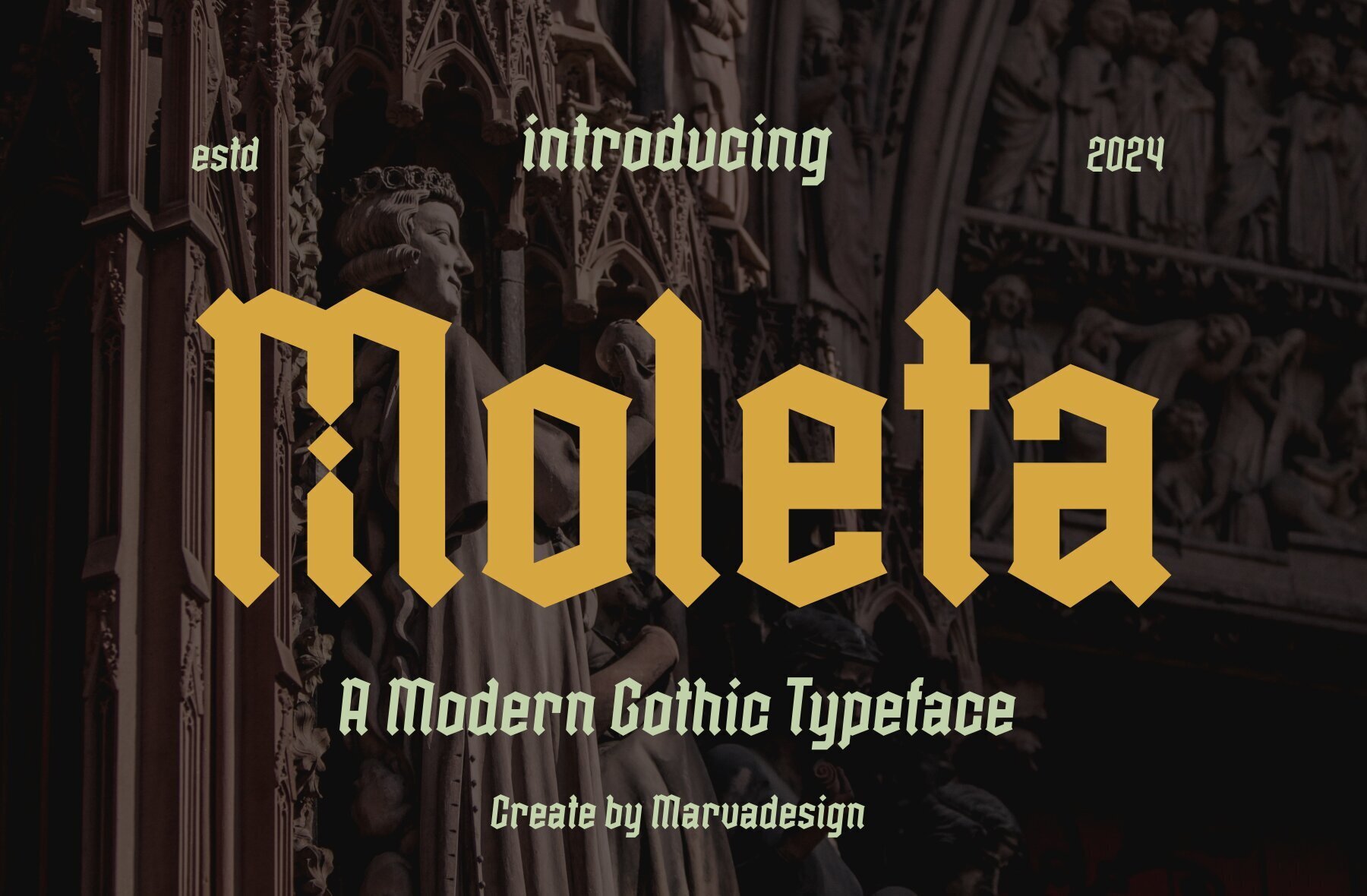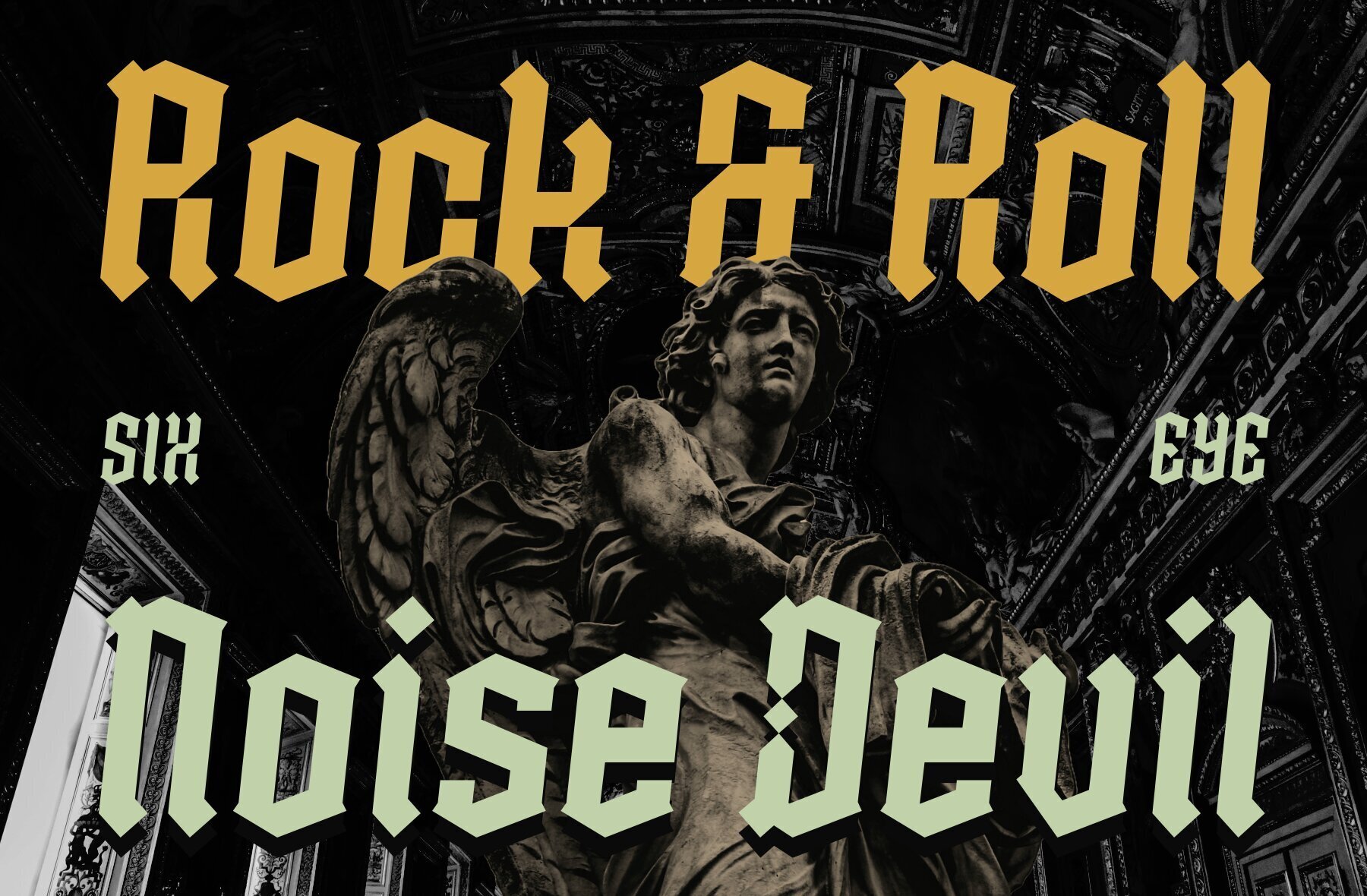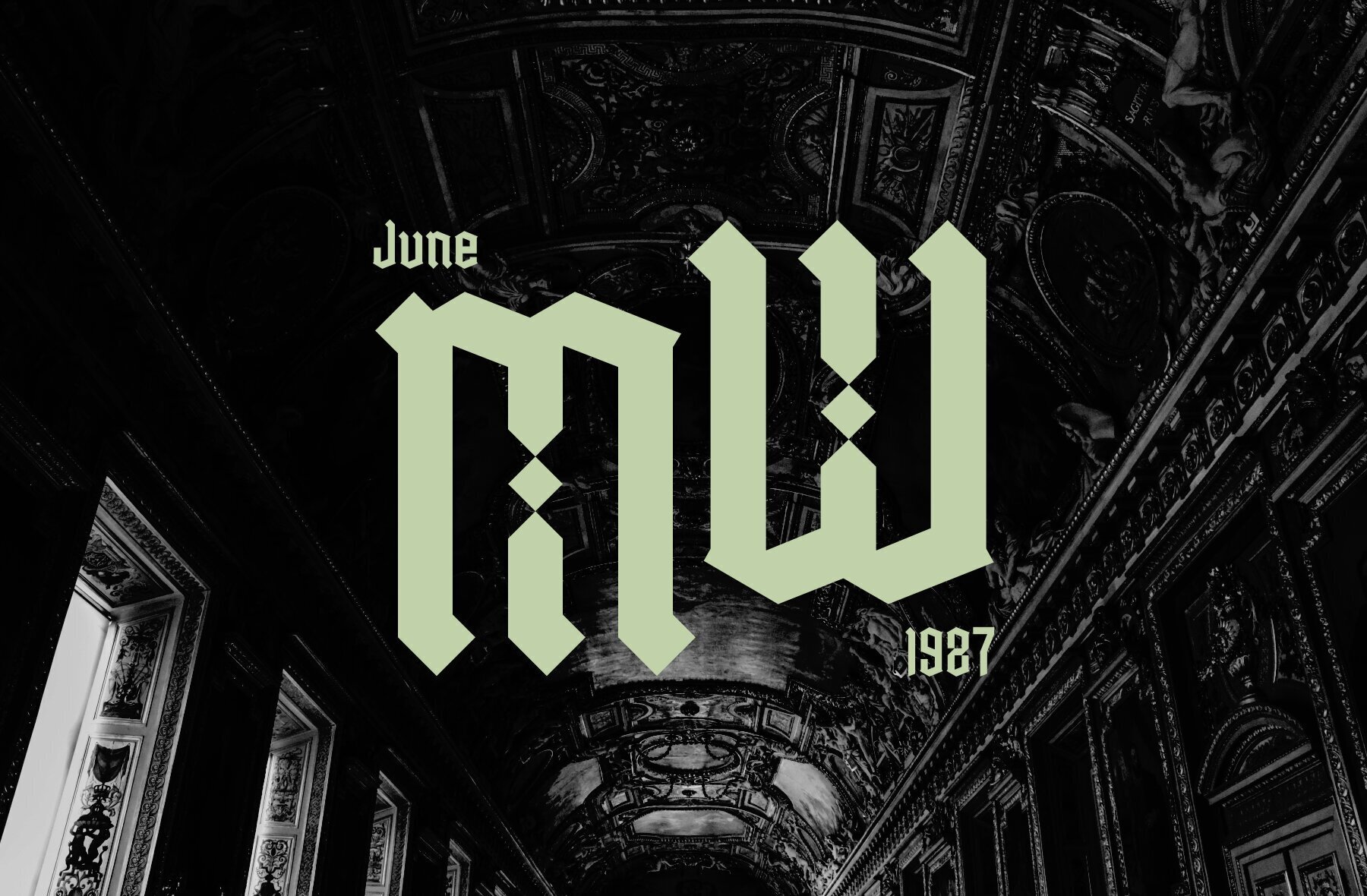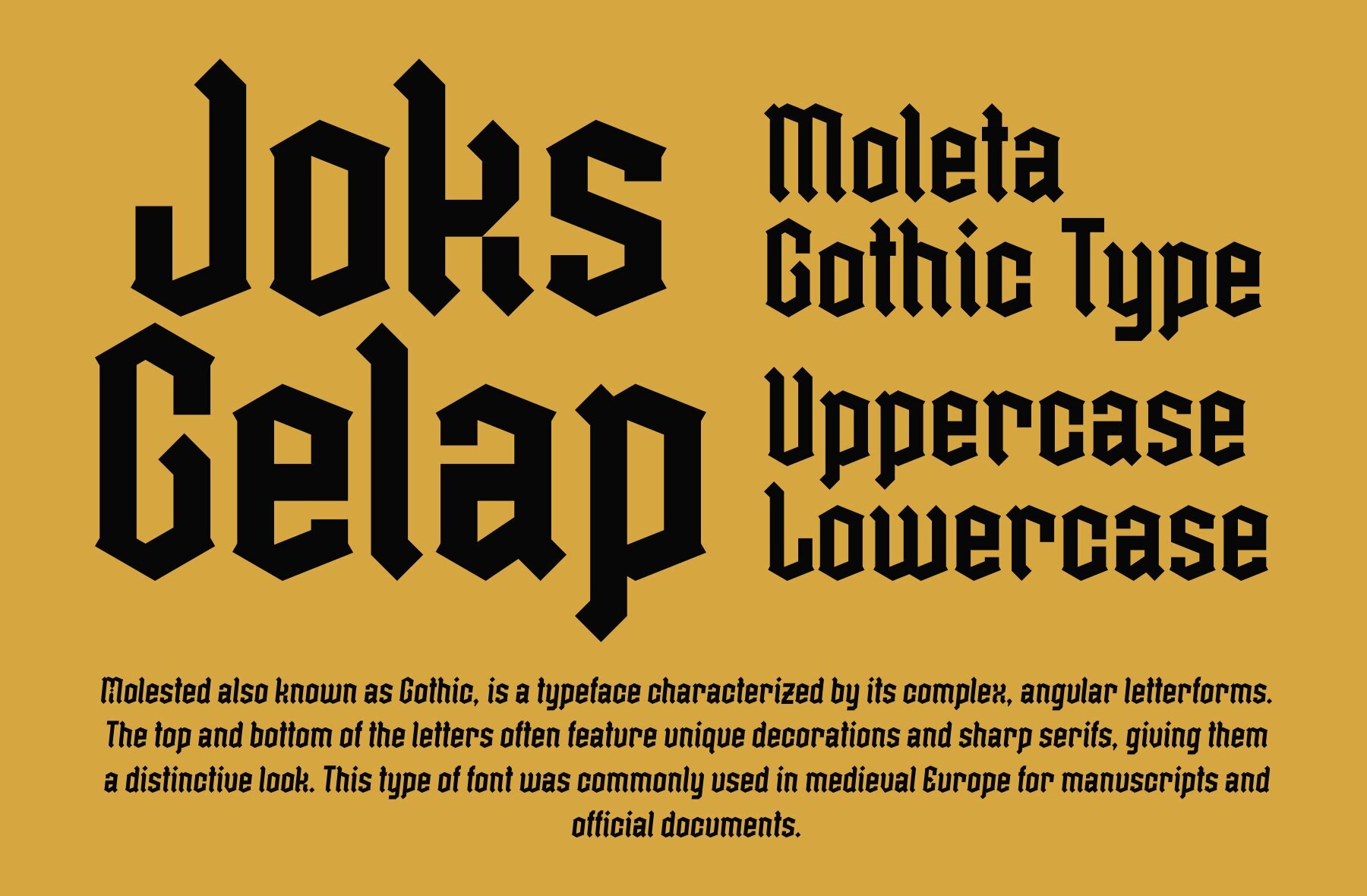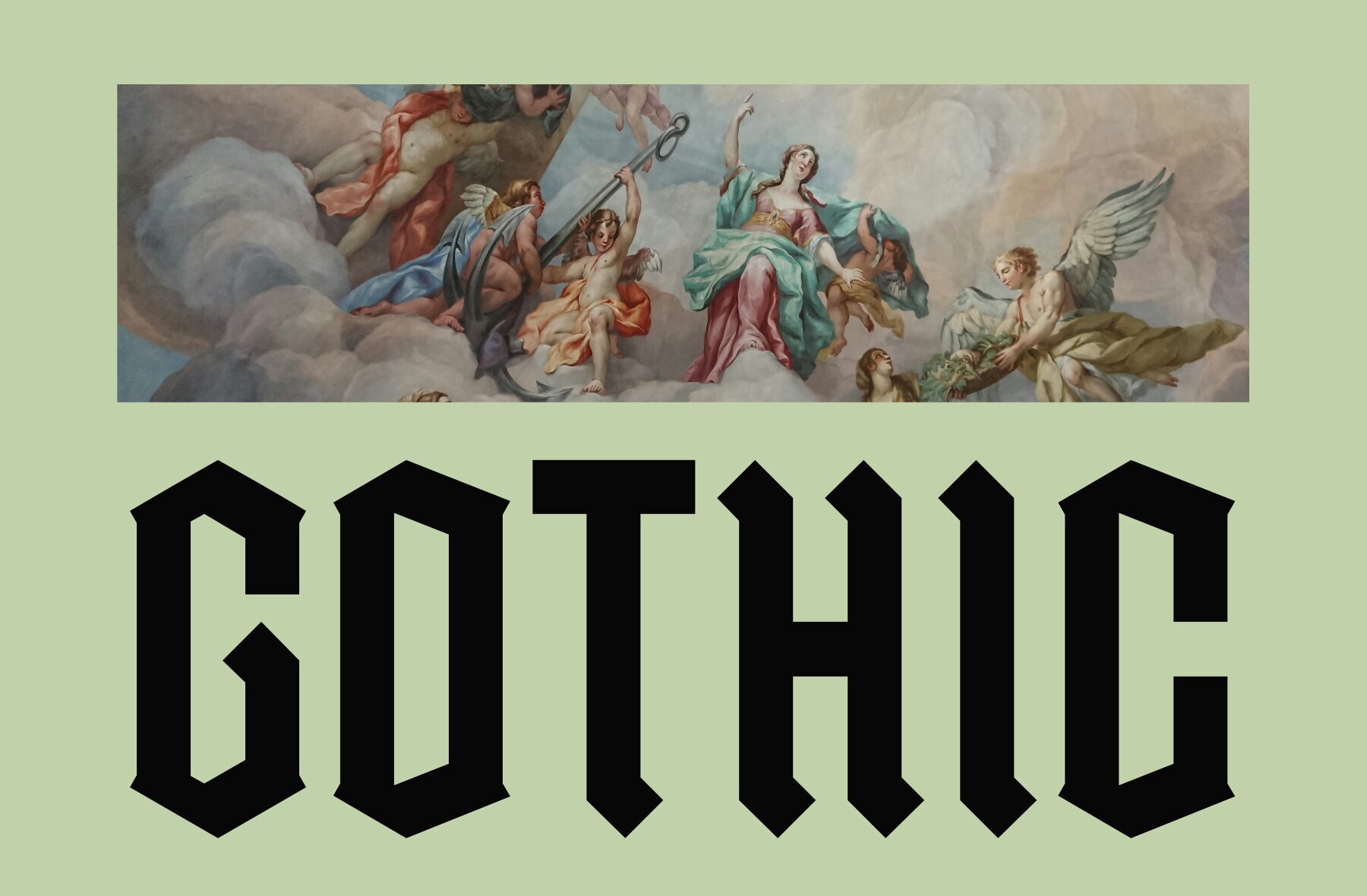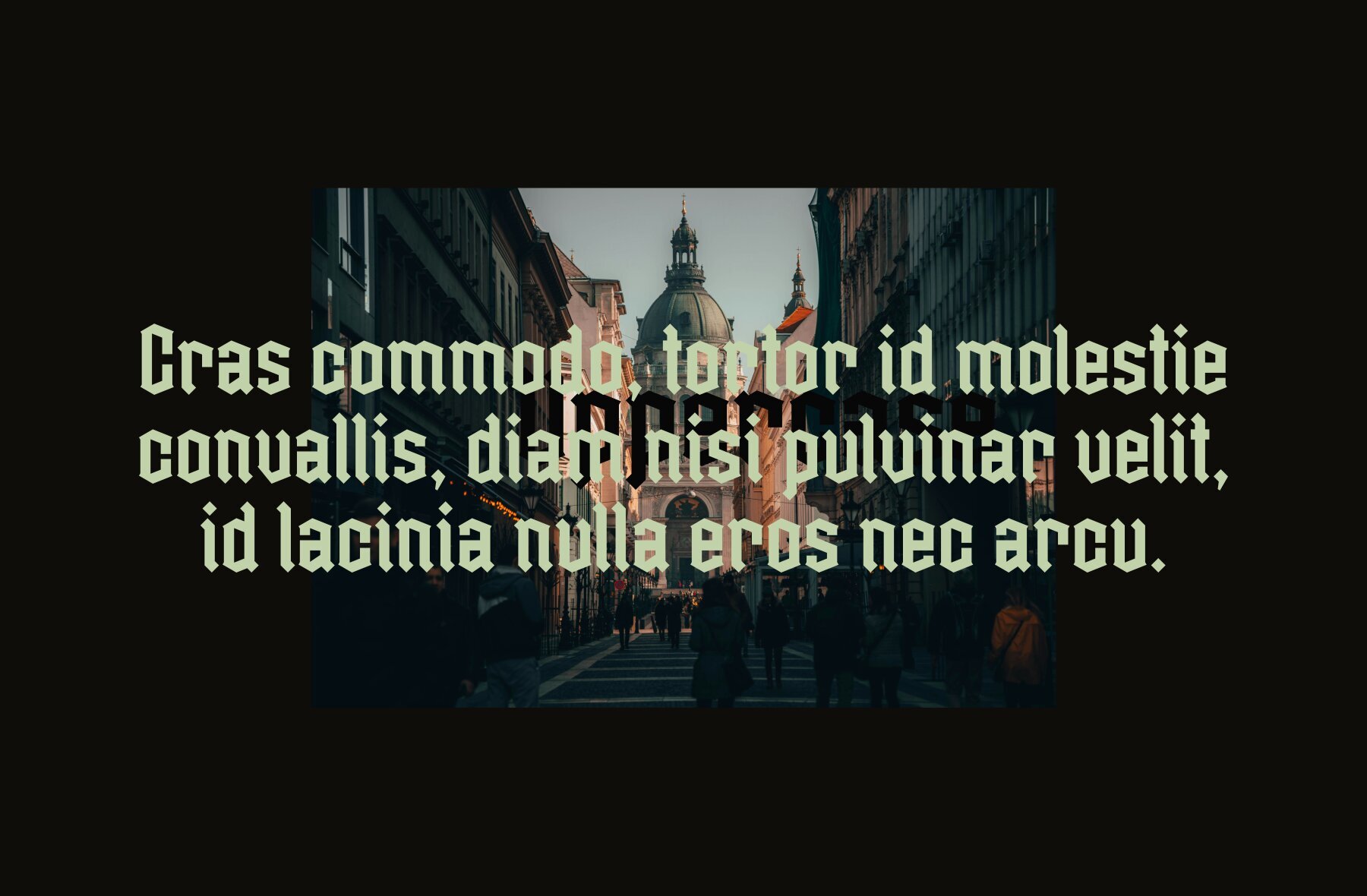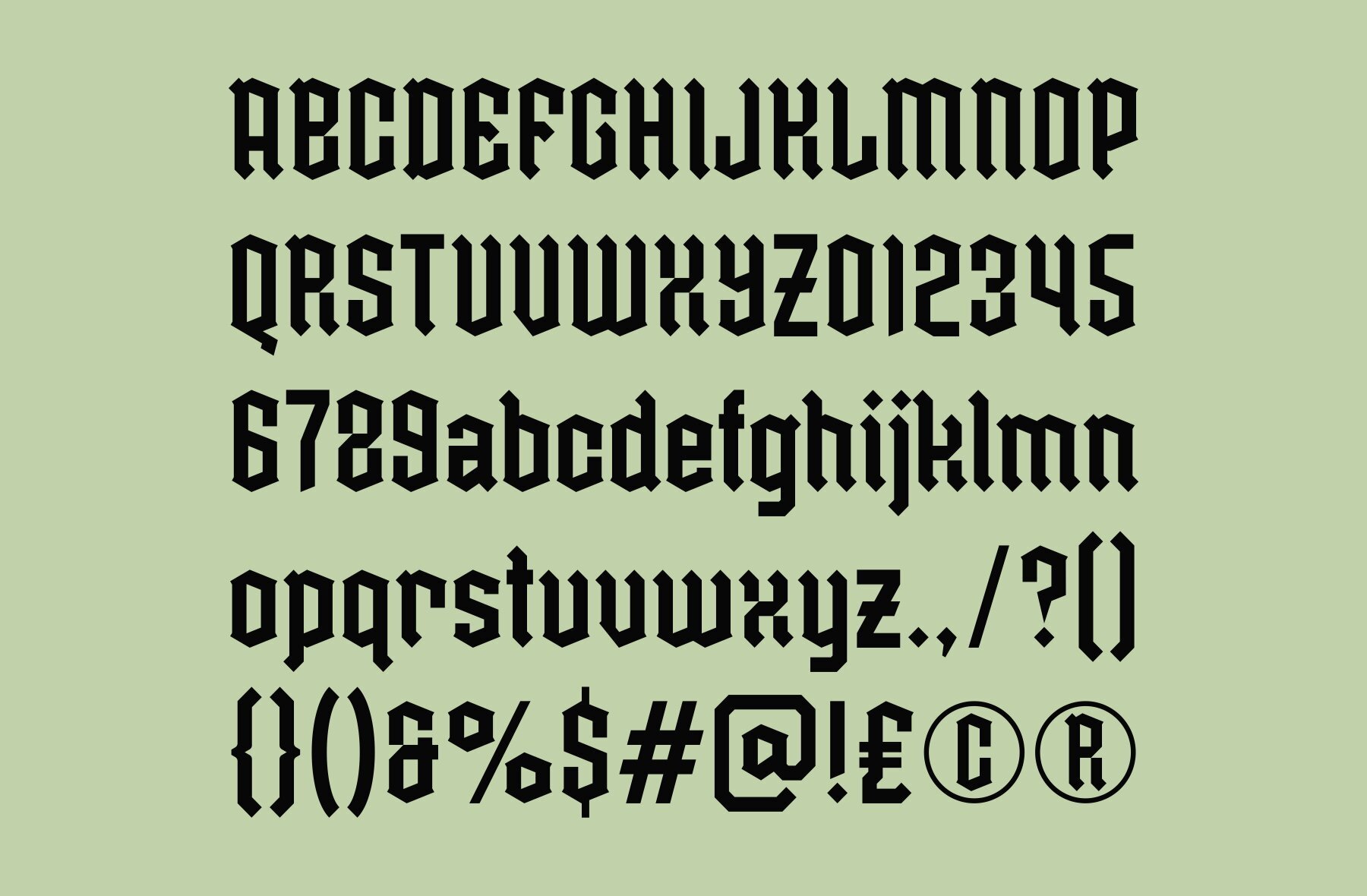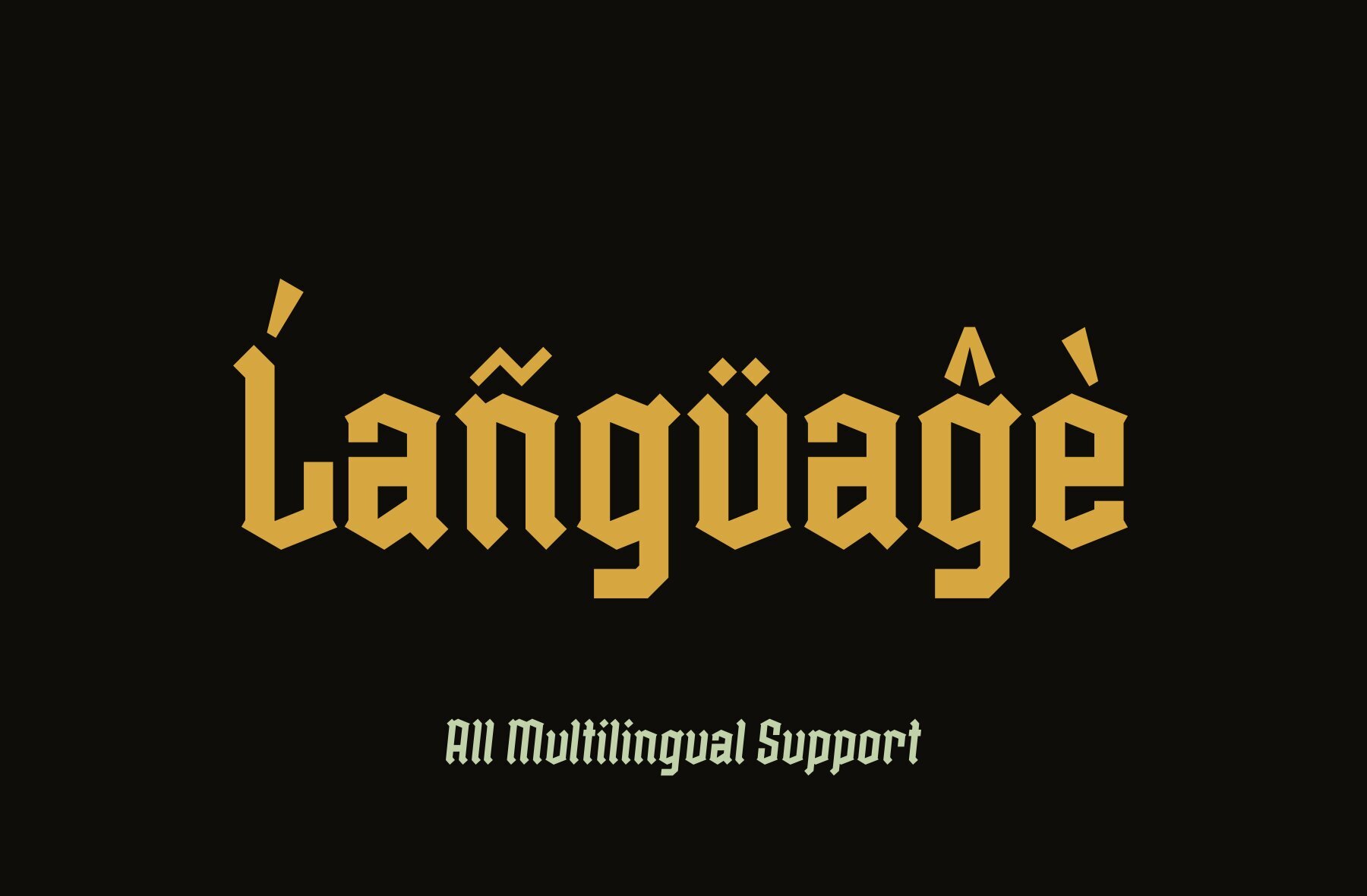
Moleta Font
Moleta, known for its Gothic style, features complex, angular letterforms accentuated by unique decorations and sharp serifs on the top and bottom. Historically prominent in medieval Europe for manuscripts and official documents, Moleta stands out for its distinctive appearance. Typically associated with traditional and formal settings such as invitations, diplomas, and certificates, Moleta also brings historical elegance to modern designs, including book covers, branding, and posters. While visually striking, it is worth noting that it may pose readability challenges for those unfamiliar with the style.Moleta: Traditional Gothic Typeface with Distinctive Flair